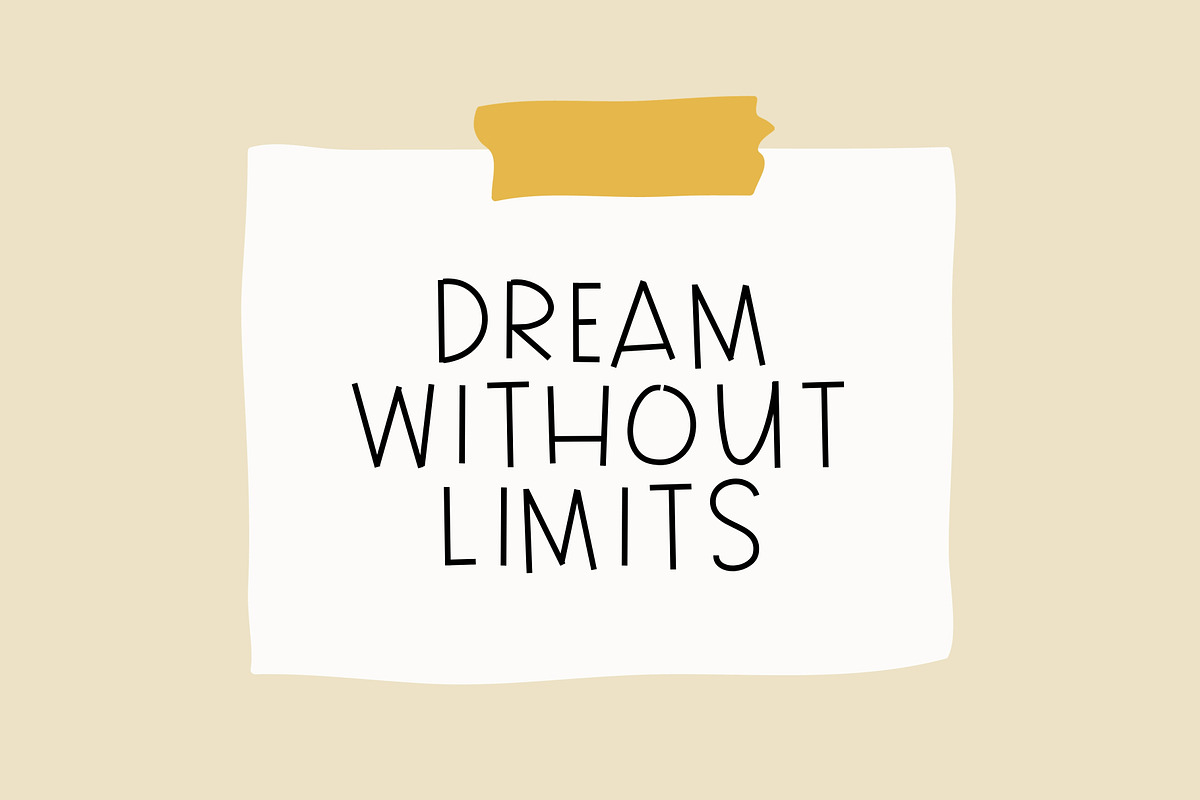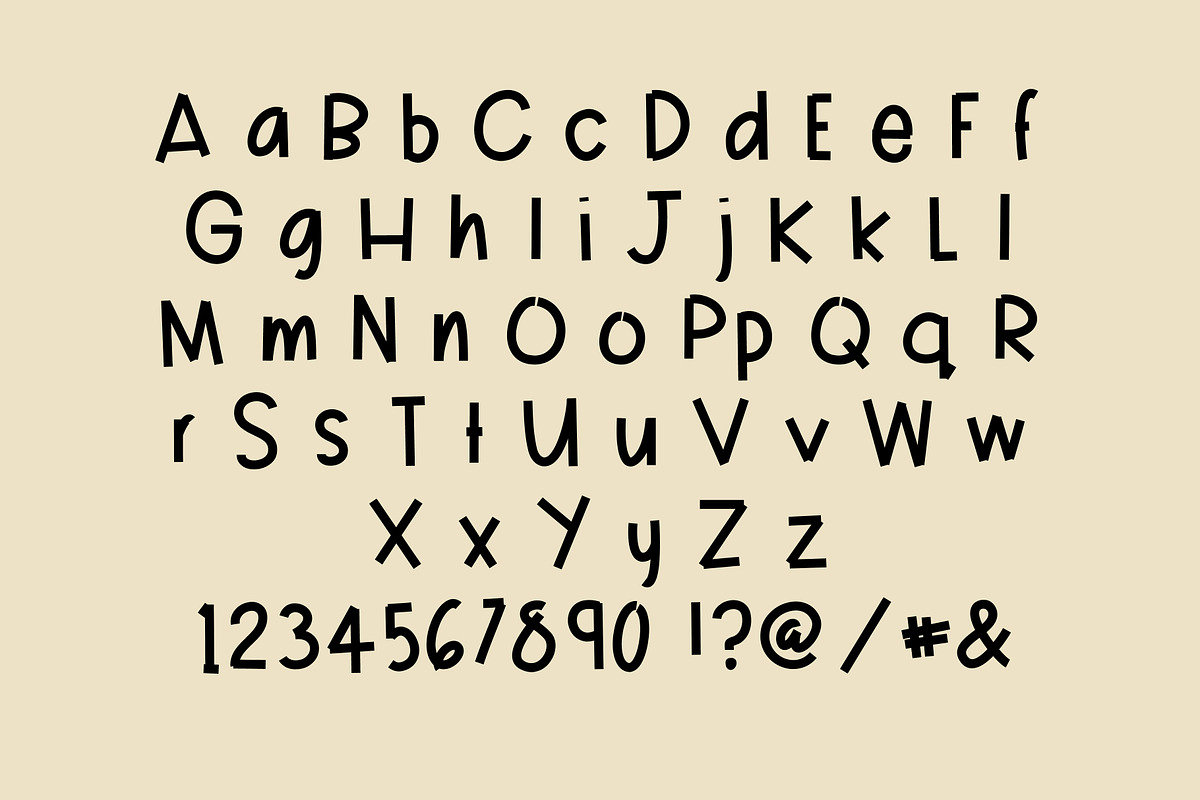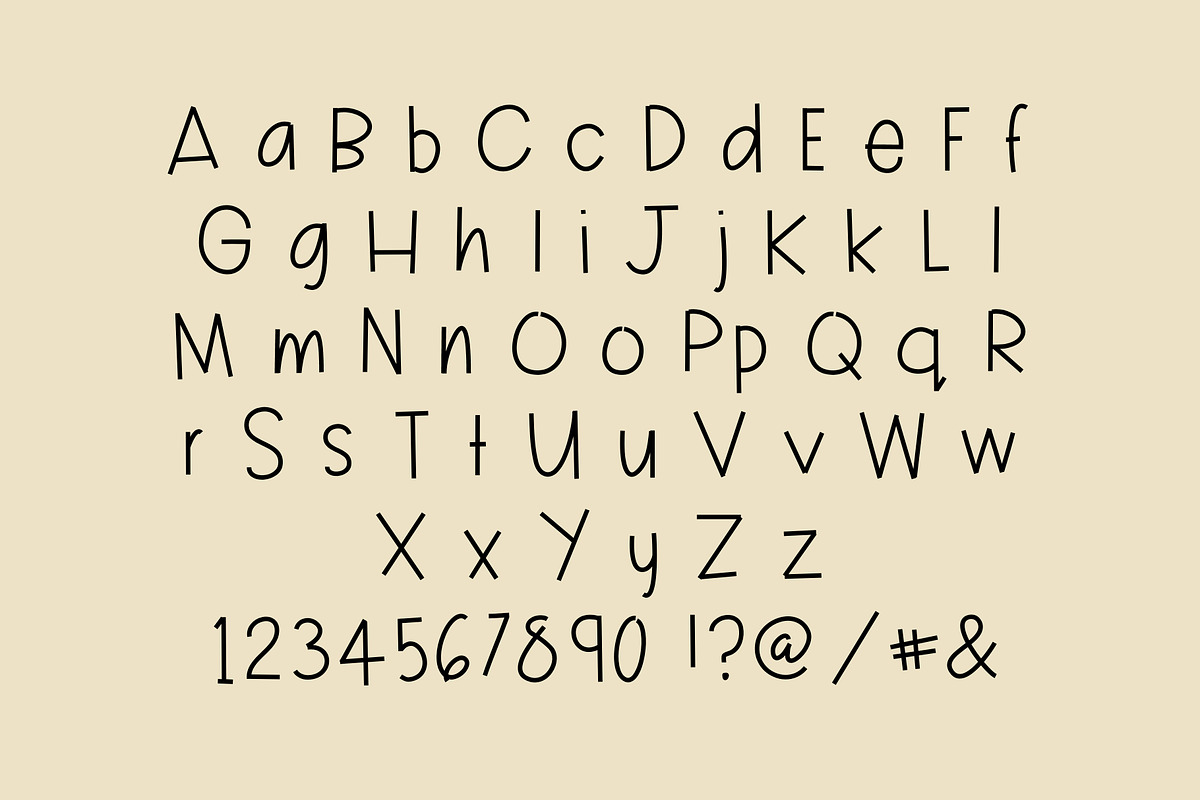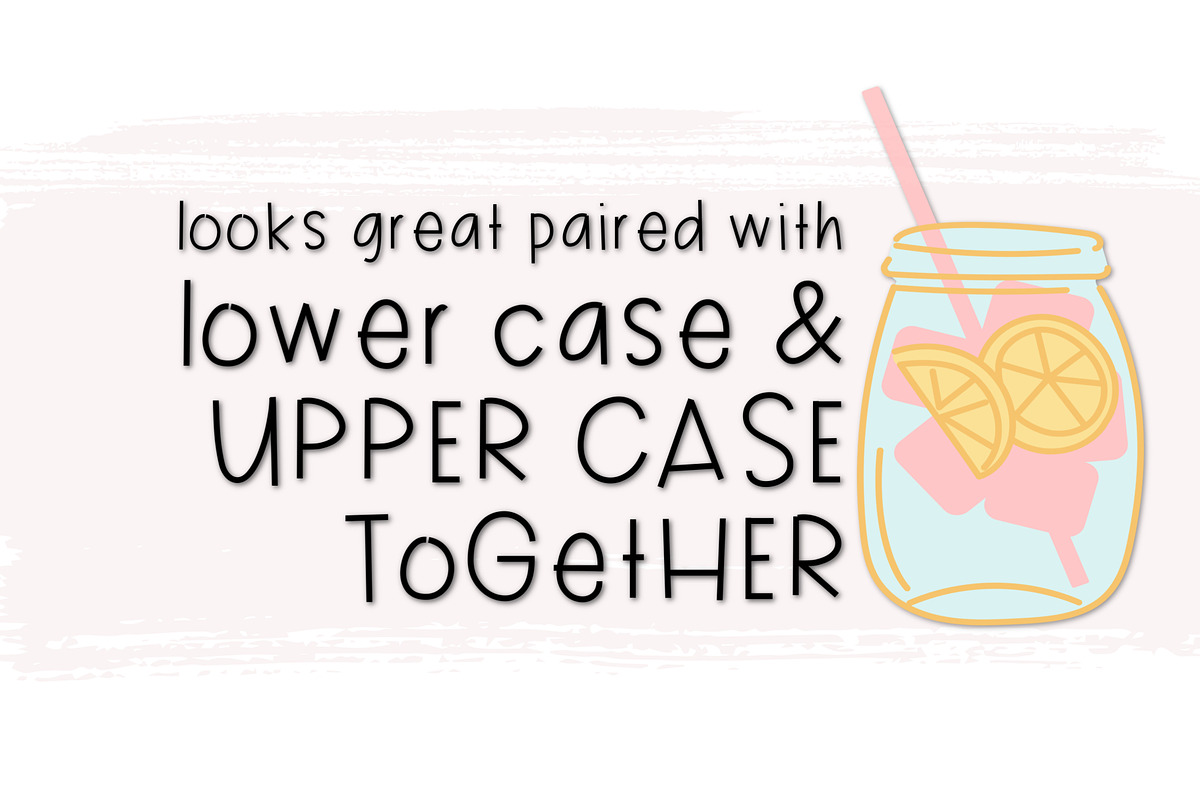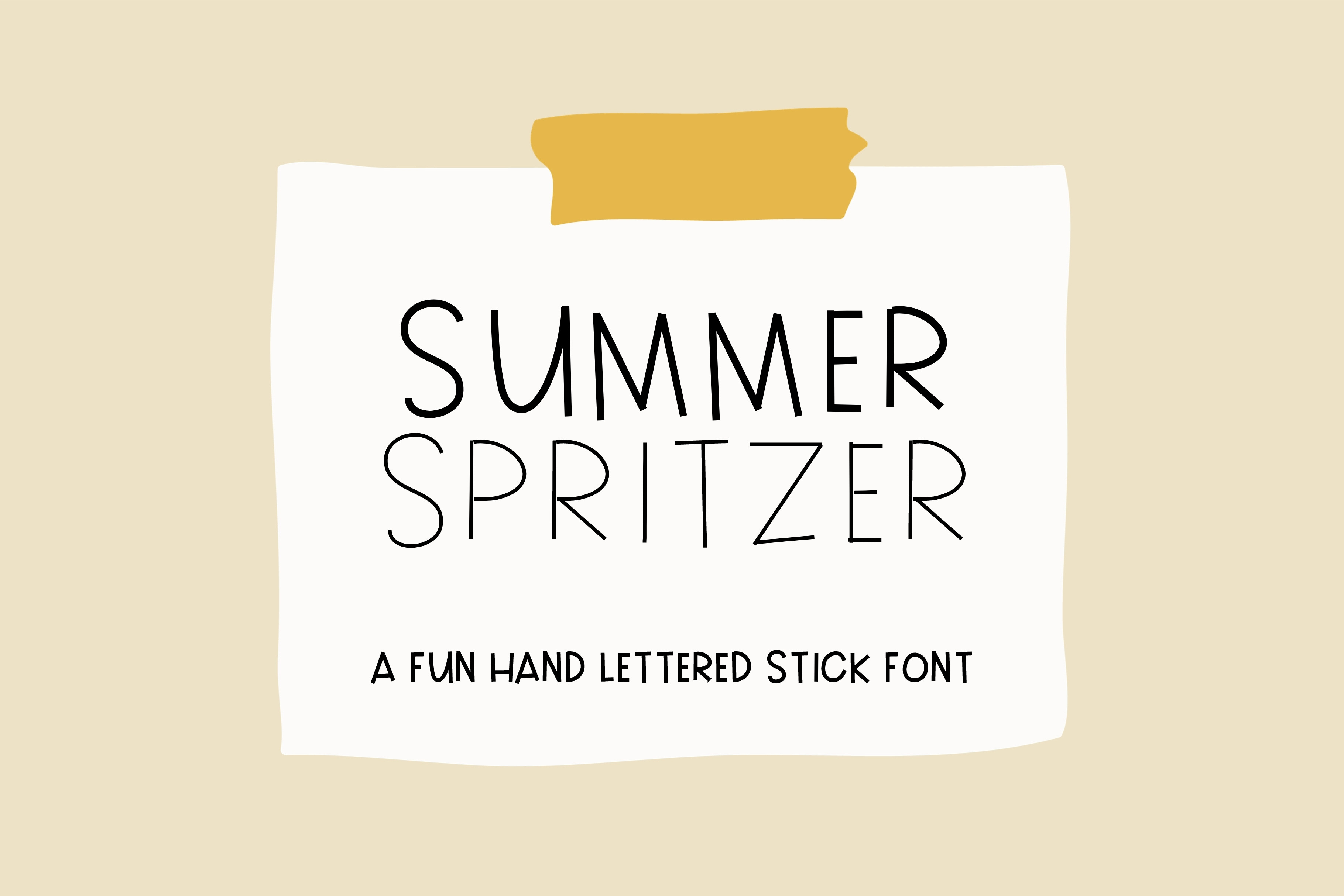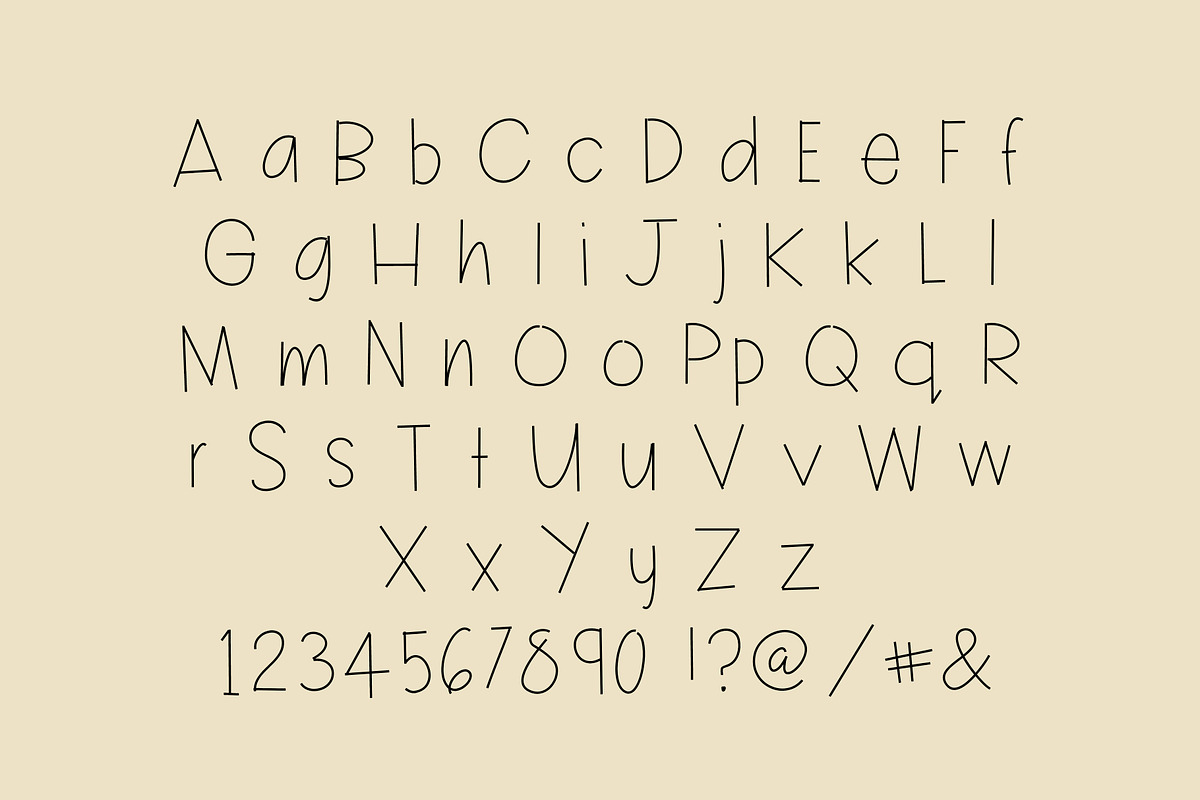
Summer Spritzer Font
Summer Spritzer Font Cute and Quirky, perfect for graphic tees and invites. Create your next project with this adorable playful font.